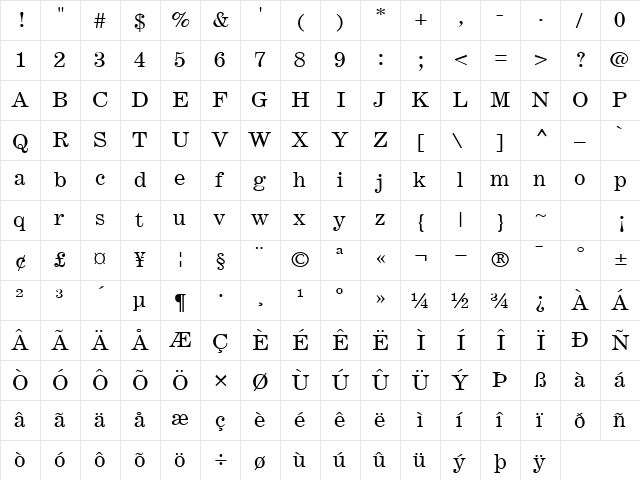
FastPardonType32 Regular
Design Context for FastPardonType32 Typeface
FastPardonType32 offers clean, dependable letterforms without strong stylistic allegiance, making it a practical choice for designers who need flexibility.